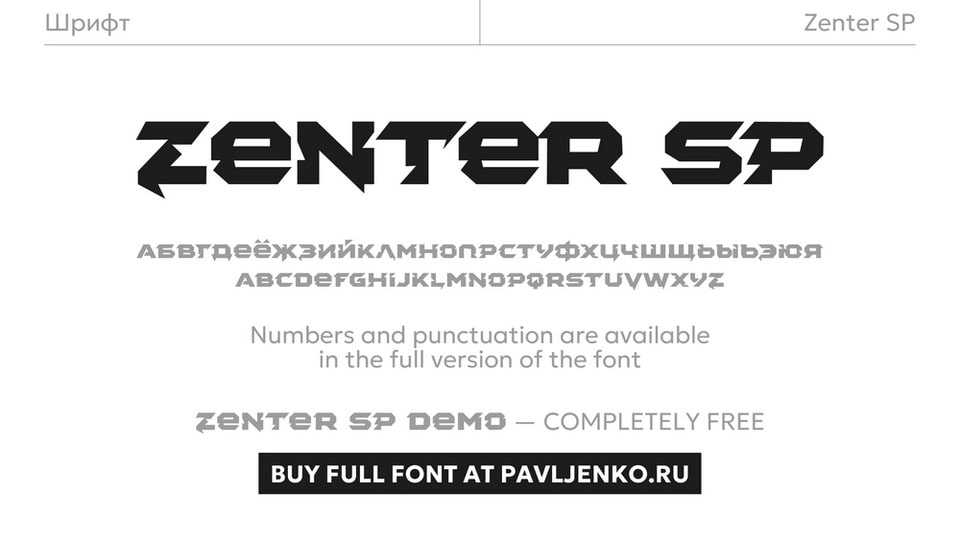
Download Zenter SP font, a heavy geometric display typeface built with sharp cuts and lightning-like strokes. Its angular forms and bold presence evoke speed, strength, and precision.
Designer: Sasha Pavljenko